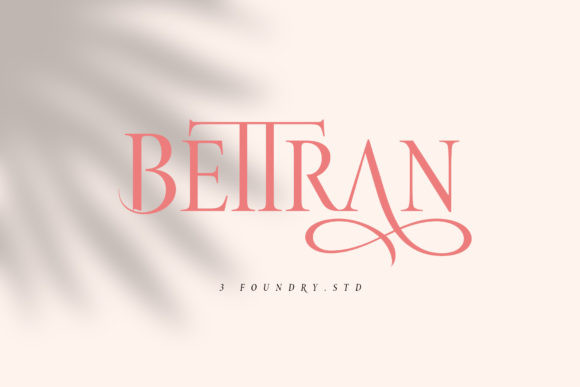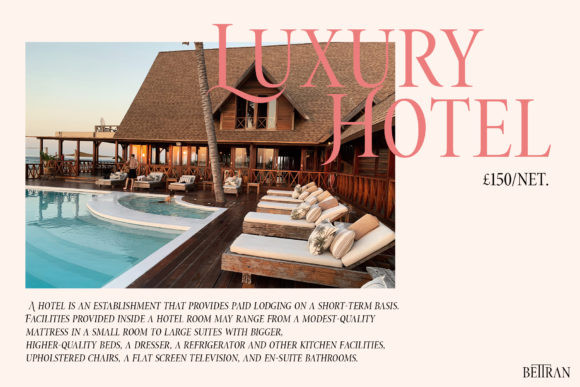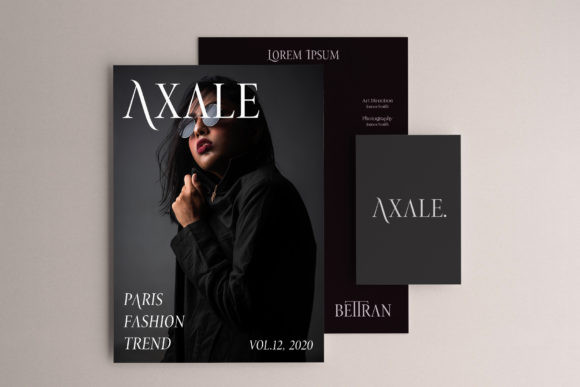
Bettran Font
Bettran is a sweet and friendly serif font. Its natural and unique style makes it incredibly fitting for a large pool of designs. The only limit is your imagination!